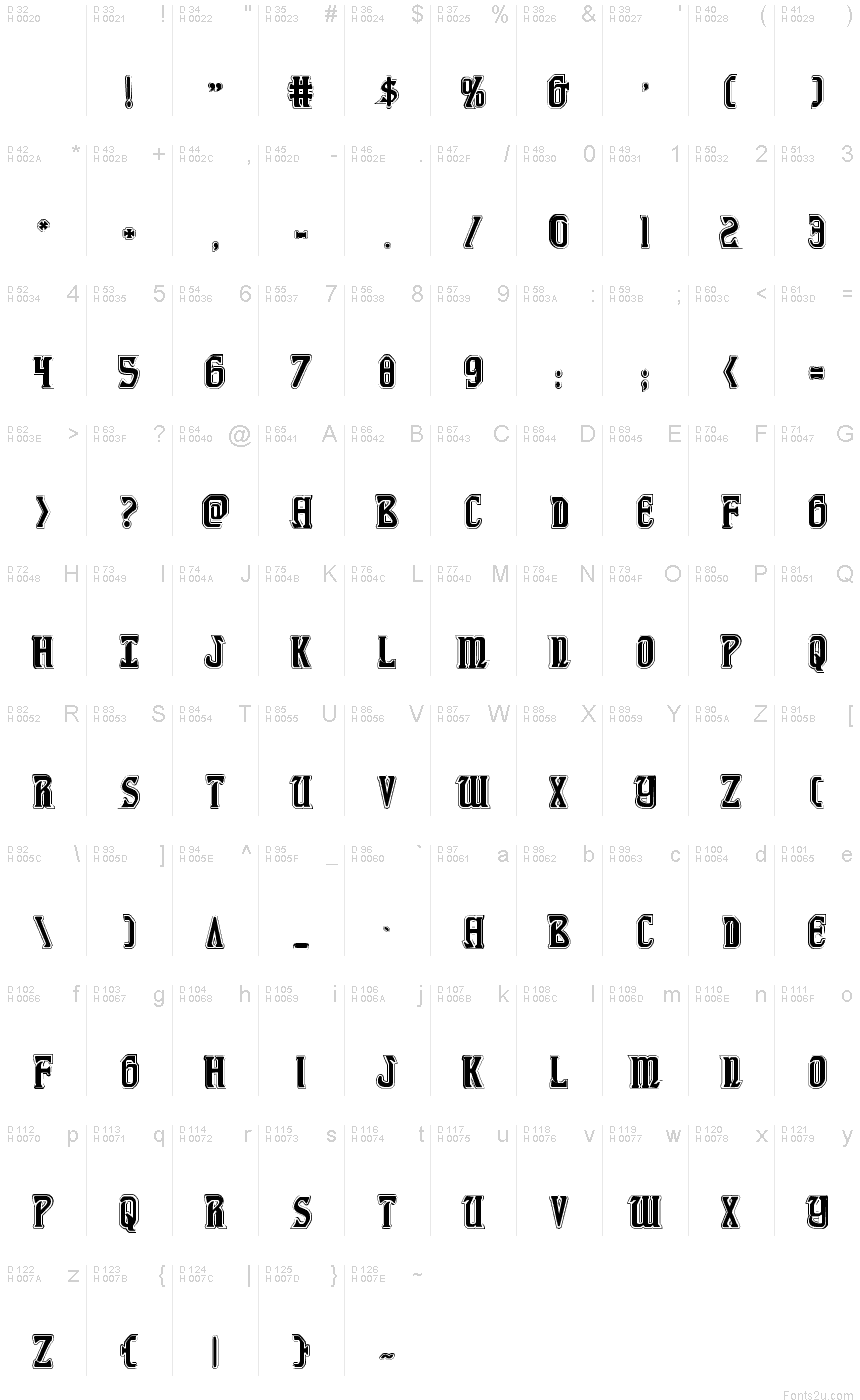
Fiddler's Cove Academy from Iconian Fonts is a free old-school display font with the broad, upright bearing of vintage collegiate lettering. Sharp slab serifs and hooked corners give the rounded forms a lively edge.
School merchandise and pub signage are very different settings, but both suit its layered outlines, deep notches, and tall proportions. It also has theatrical weight for sports posters and music graphics with a strong period cue. The framed letters can become part of a team crest or illustrated tavern sign, not merely neutral text.
Fiddler's Cove Academy